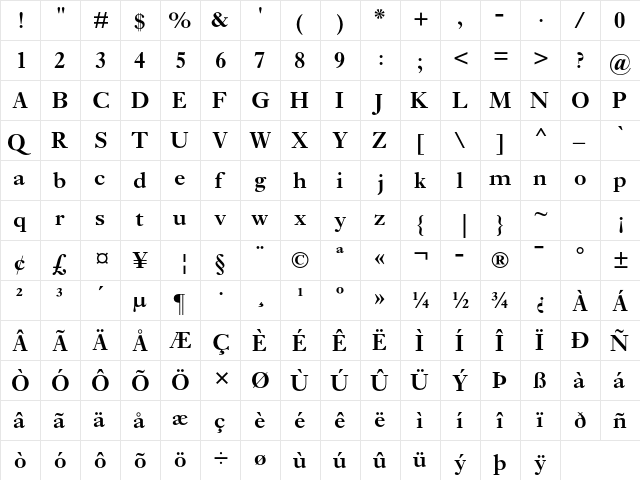
Ehrhardt MT Std Semibold
Design Context for Ehrhardt MT Std Typeface
Ehrhardt MT Std is a composed and adaptable typeface that performs quietly and consistently across a wide range of design contexts. Its bold stroke weight gives it real presence on the page.
Pro Tip: Pair Ehrhardt MT Std with a font of contrasting weight or personality to build a more expressive typographic hierarchy.